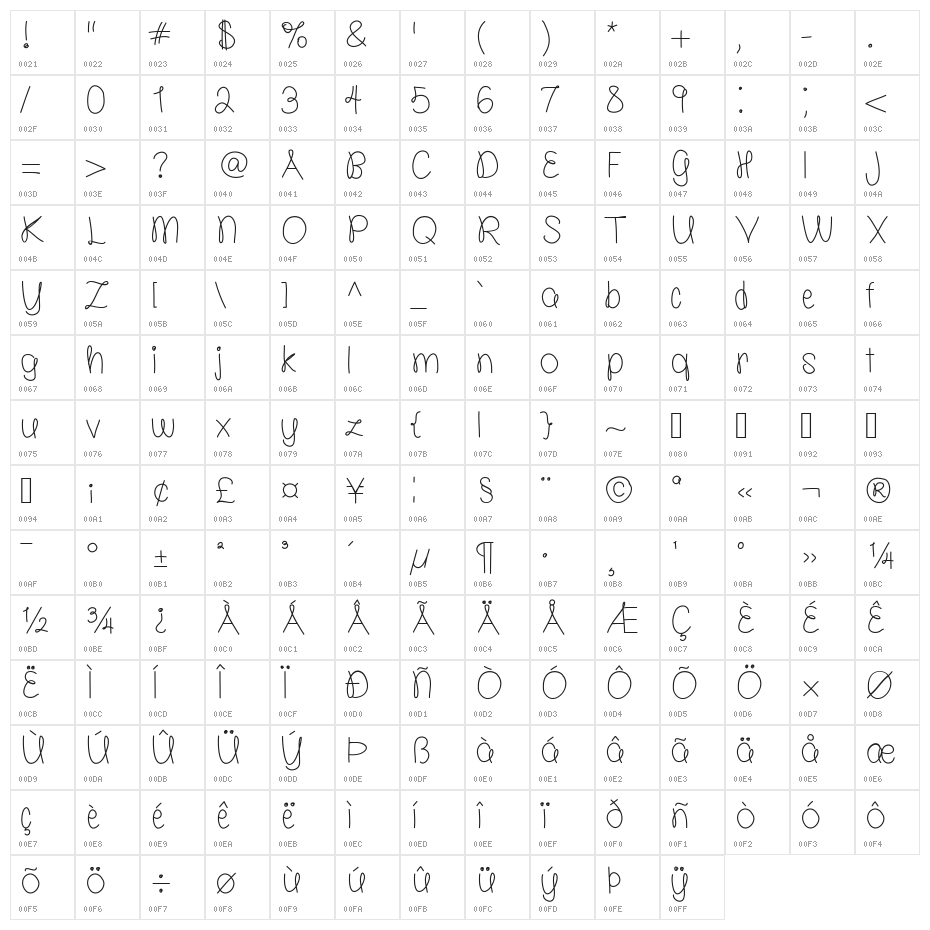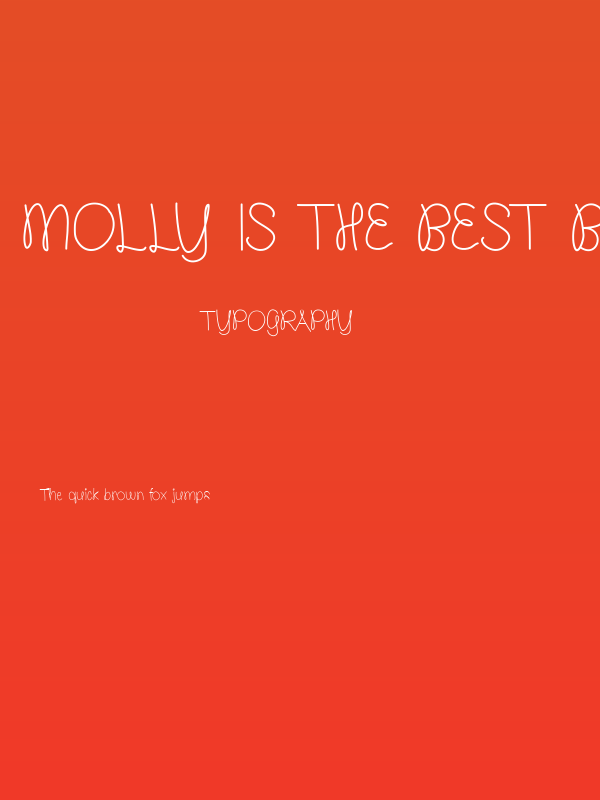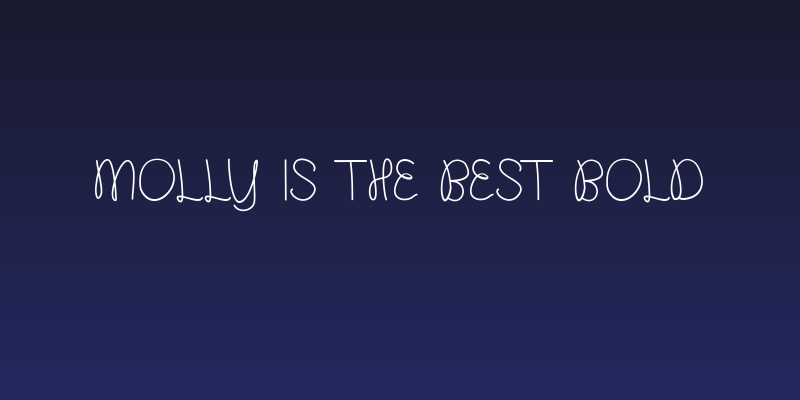
Molly is the Best Bold Font
Molly is the Best Bold Description
This playful and whimsical font features a handwritten style with a casual and friendly appearance. The letters are characterized by their smooth, flowing lines and slightly irregular shapes, giving them a personal and informal touch. The uppercase and lowercase letters maintain a consistent style, with rounded edges and a slight slant that adds to the font's charm. The numbers and special characters are designed to match the overall aesthetic, ensuring a cohesive look across all text elements. This font is perfect for projects that require a touch of personality and creativity.
Overall StyleCasual and playful
Use CaseHeadlines, Invitations, Creative projects
Proposed ProjectsIdeal for greeting cards, children's books, personal blogs, and creative branding projects.